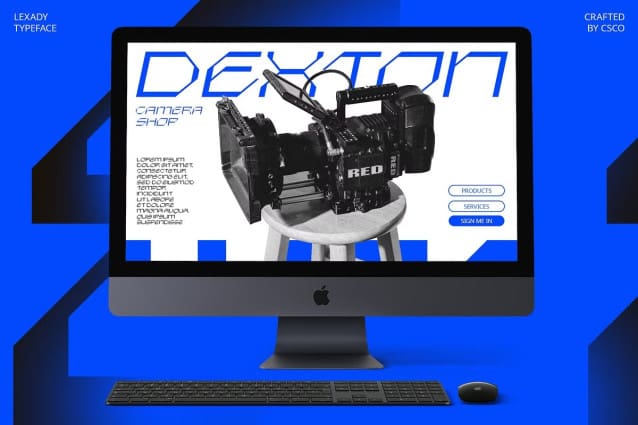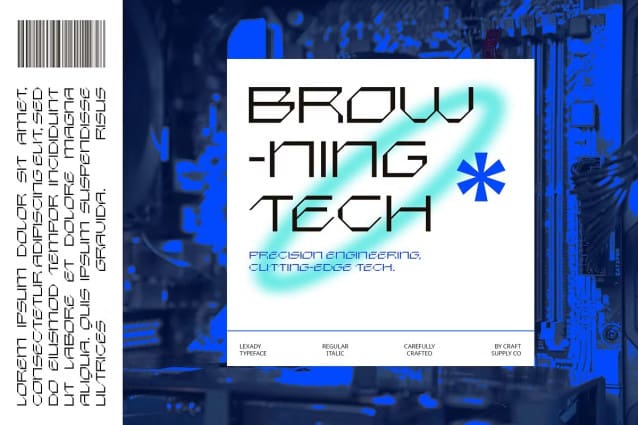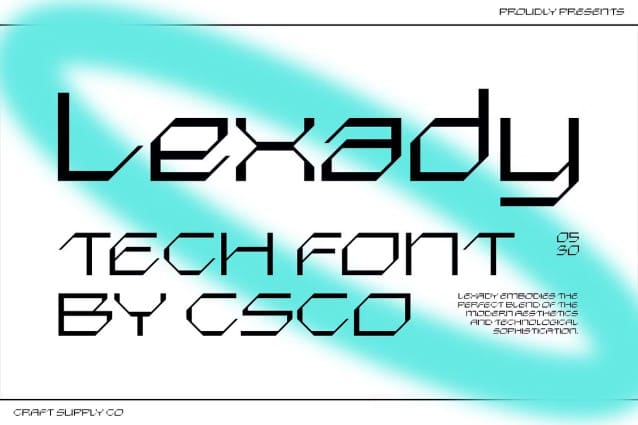
Lexady Display Font
Lexady Display Font is a display font with a tech and futuristic style, suitable for various modern and future-oriented designs, particularly for technology, automotive, modern architecture, and related designs. Its sleek lines and contemporary look make it perfect for projects that require a modern and innovative aesthetic.
Whether you’re designing a website for a tech company, creating branding for a modern automotive brand, or working on a project related to modern architecture, Lexady is the perfect font choice. Its tech and futuristic style convey a sense of innovation and progress, making it ideal for designs that aim to be cutting-edge and forward-thinking.
Despite its futuristic appearance, Lexady Display is versatile and easy to use. The font works well in both large and small sizes, making it suitable for a variety of applications. With its blend of tech and futuristic style, Lexady adds a modern and dynamic touch to any design.